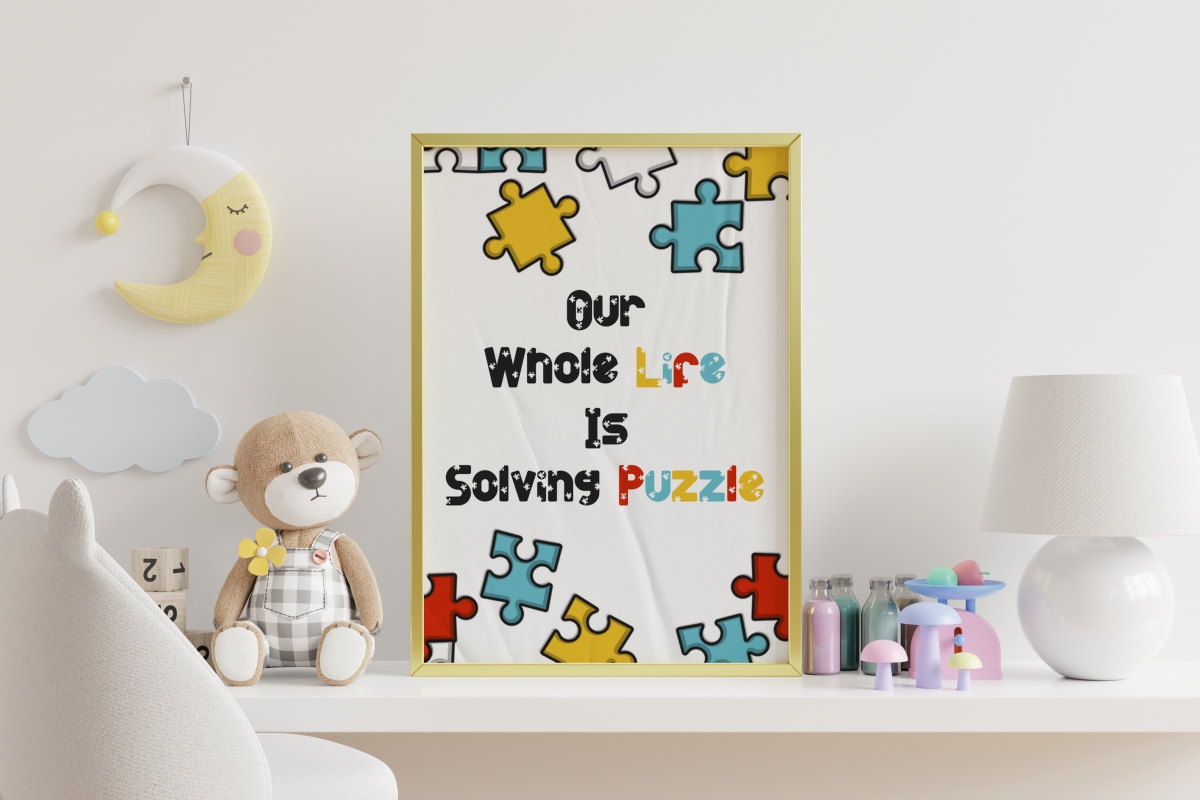
Mini Puzzle Font
Mini Puzzle Display Font
This is a fun display font with unique and exclusive shape styles : Puzzles Game. This fancy font has unique style that wont be found anywhere else. The puzzles on the letters make the styles looks playful but still easily to read. It will be amazing for many business/projects category : games, movies, events, party, toys brands etc